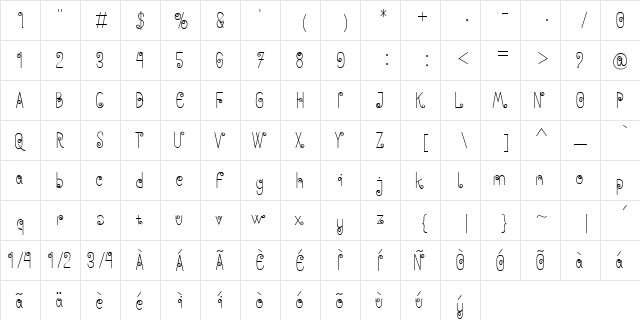
Anohana Typeface Regular
| Foundry | Skyblue Typefoundry |
| Designer | Abdul Azizul |
Design Context for Anohana Typeface Typeface
Anohana Typeface is a composed and adaptable typeface that performs quietly and consistently across a wide range of design contexts.